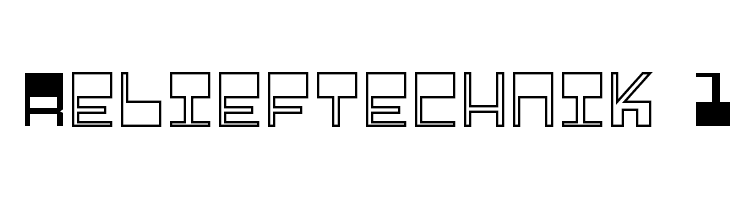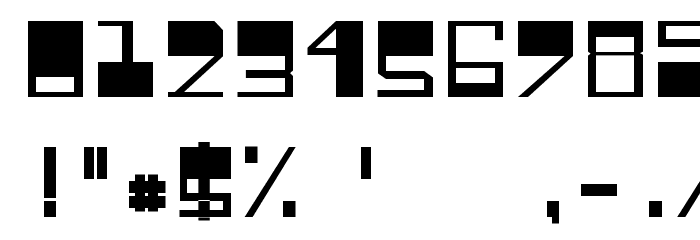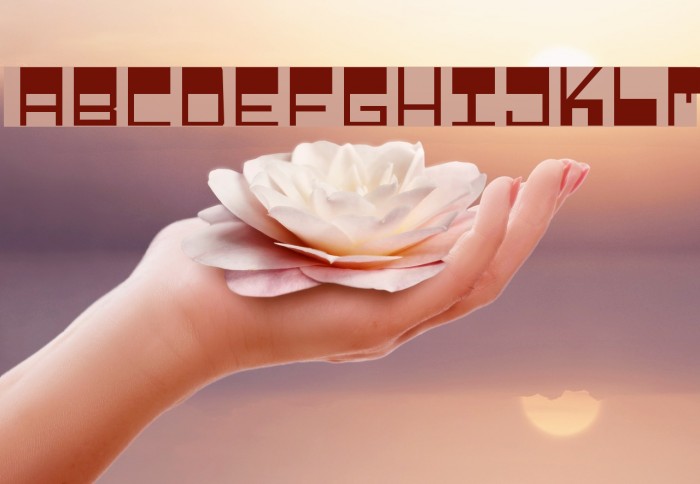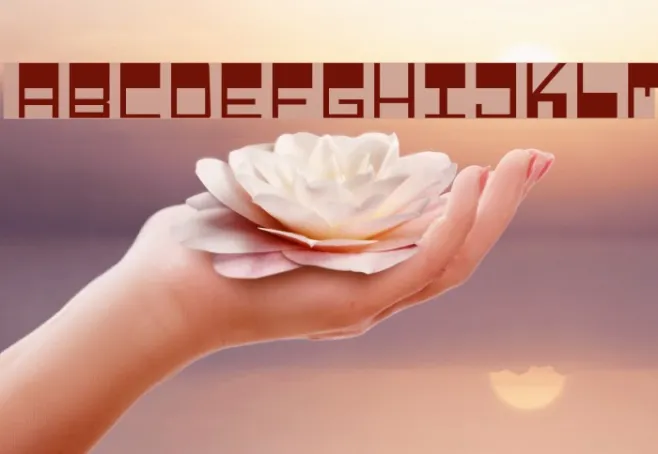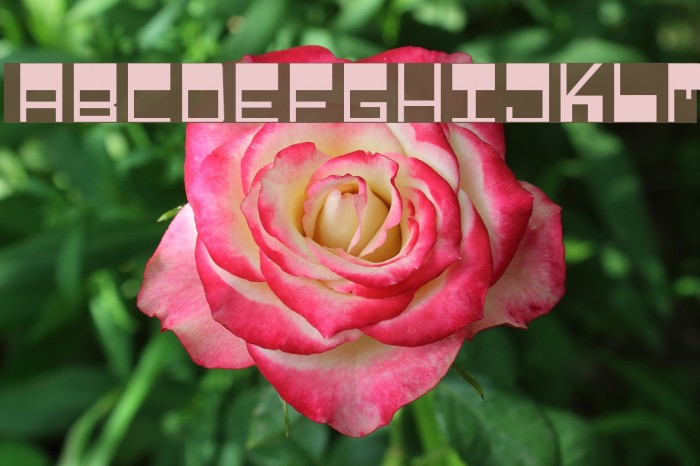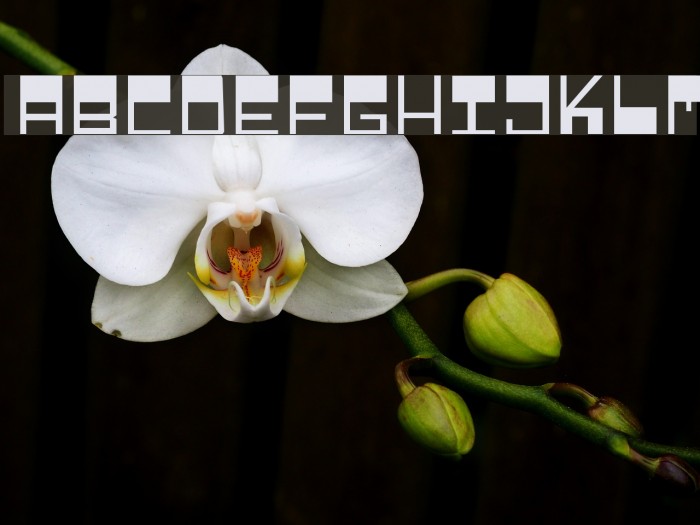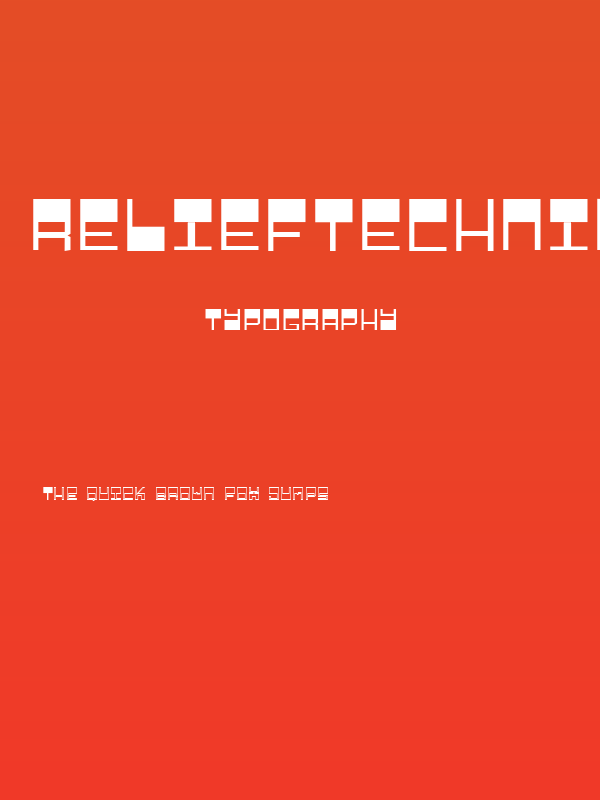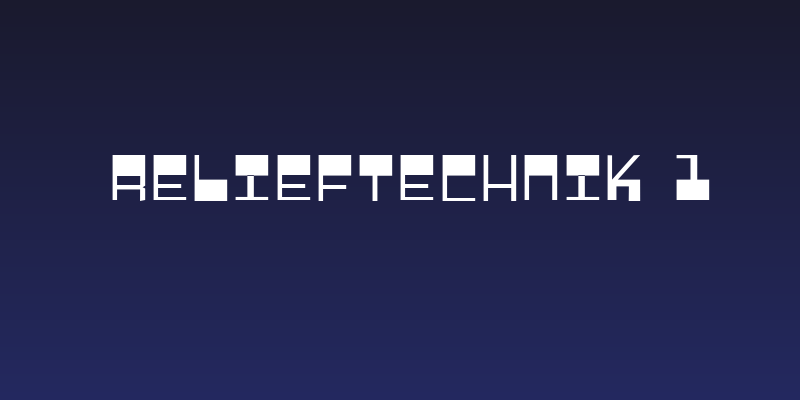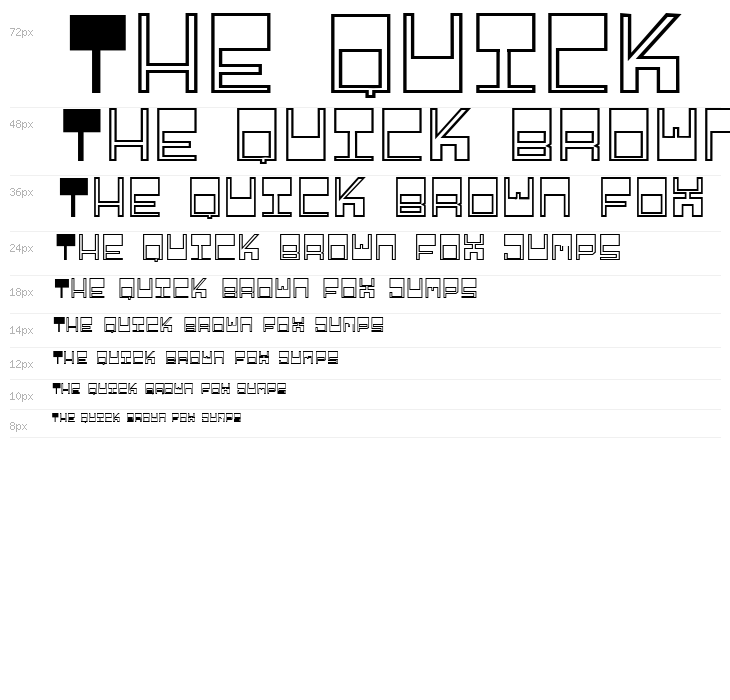
Relieftechnik 1 Font
Relieftechnik 1 Description
This font features a bold, geometric design with a strong, industrial feel. The characters are constructed with solid, block-like shapes, giving them a sturdy and robust appearance. The uppercase letters are particularly striking, with angular lines and sharp edges that convey a sense of strength and modernity. The lowercase letters maintain this geometric style, ensuring consistency across the typeface. Numbers and special characters are designed with the same boldness, making them stand out. The font's overall aesthetic is reminiscent of digital or technological themes, making it suitable for projects that require a futuristic or tech-oriented look.
Proposed ProjectsIdeal for technology branding, video game titles, futuristic posters, and digital interfaces.